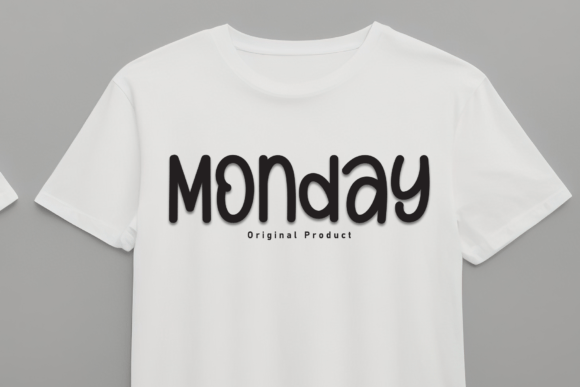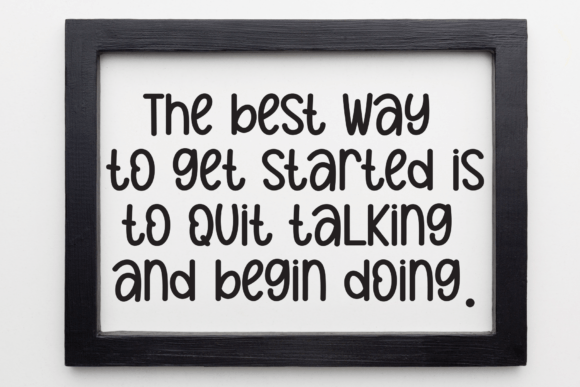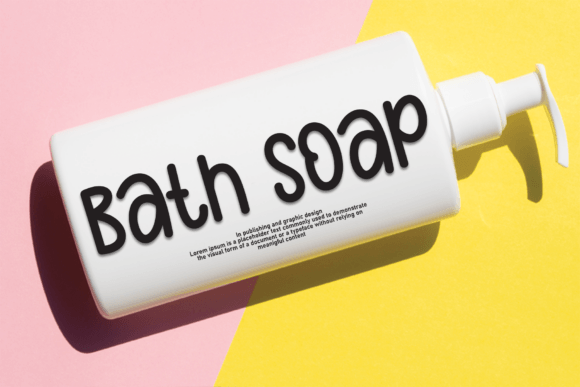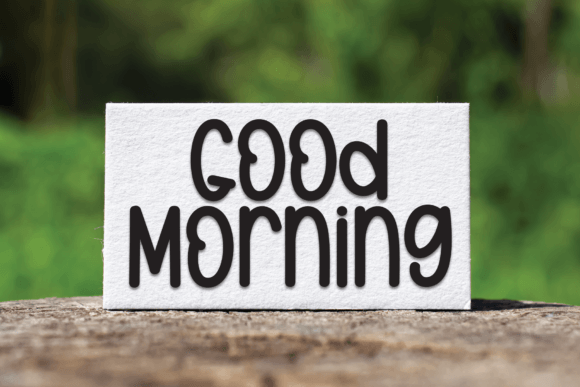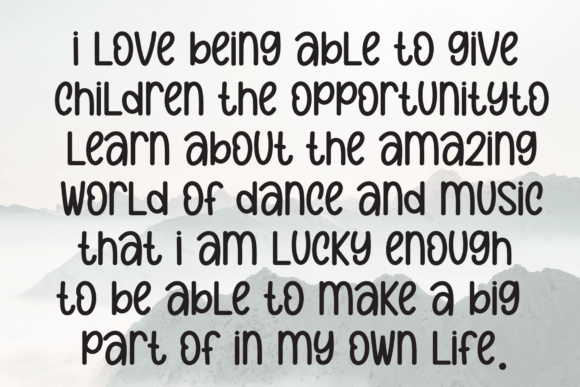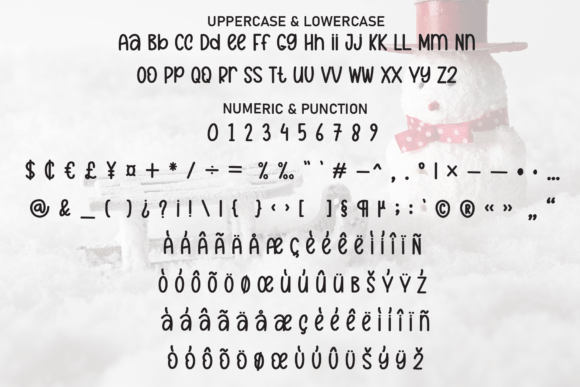
Christmas Snowman Font: A Charming and Inviting Handwritten Display Font
Are you looking for a font that can add a touch of magic to your designs? Look no further than the Christmas Snowman Font, a charming and inviting handwritten display font that is perfect for creating delightful and whimsical designs. With its playful charm and sweet aesthetic, this font is sure to capture the essence of joy and fun in any design.
What is Christmas Snowman Font?
Christmas Snowman Font is a unique and charming handwritten display font that boasts a playful charm that’s perfect for personalizing wedding invitations, greeting cards, and an array of other designs that call for a touch of lighthearted whimsy. This font is designed to bring a smile to your face and a touch of magic to your designs. With its sweet and friendly aesthetic, it’s perfect for designers and crafters who want to create delightful and engaging designs.
Key Features of Christmas Snowman Font
So, what makes Christmas Snowman Font so special? Here are some of its key features:
- Playful charm: This font has a playful charm that’s perfect for creating designs that are fun and lighthearted.
- Sweet and friendly aesthetic: The font has a sweet and friendly aesthetic that’s perfect for creating designs that are delightful and engaging.
- Handwritten display font: This font is a handwritten display font that’s perfect for creating designs that are unique and personalized.
- Perfect for various designs: This font is perfect for creating a variety of designs, including wedding invitations, greeting cards, and more.
Uses of Christmas Snowman Font
So, what can you use Christmas Snowman Font for? The possibilities are endless! Here are some ideas to get you started:
- Wedding invitations: This font is perfect for creating unique and personalized wedding invitations that will set the tone for a fun and lighthearted wedding.
- Greeting cards: Use this font to create delightful and engaging greeting cards for birthdays, holidays, and other special occasions.
- Party decorations: This font is perfect for creating party decorations, such as banners, garlands, and other DIY projects.
- Social media graphics: Use this font to create fun and engaging social media graphics that will make your followers smile.
Why Choose Christmas Snowman Font?
So, why should you choose Christmas Snowman Font for your designs? Here are just a few reasons:
- Unique and personalized: This font is unique and personalized, making it perfect for creating designs that stand out from the crowd.
- Delightful and engaging: This font is delightful and engaging, making it perfect for creating designs that will capture the attention of your audience.
Tips for Using Christmas Snowman Font
Here are a few tips for using Christmas Snowman Font in your designs:
- Use it sparingly: Use this font sparingly to add a touch of magic to your designs. Overusing it can make your designs look cluttered and overwhelming.
- Pair it with other fonts: Pair this font with other fonts to create a unique and interesting design.
- Experiment with colors: Experiment with different colors to find the perfect combination that will make your designs pop.
In conclusion, Christmas Snowman Font is a charming and inviting handwritten display font that’s perfect for creating delightful and whimsical designs. With its playful charm and sweet aesthetic, this font is sure to capture the essence of joy and fun in any design. Whether you’re a designer or crafter, this font is perfect for creating unique and personalized designs that will make your audience smile.